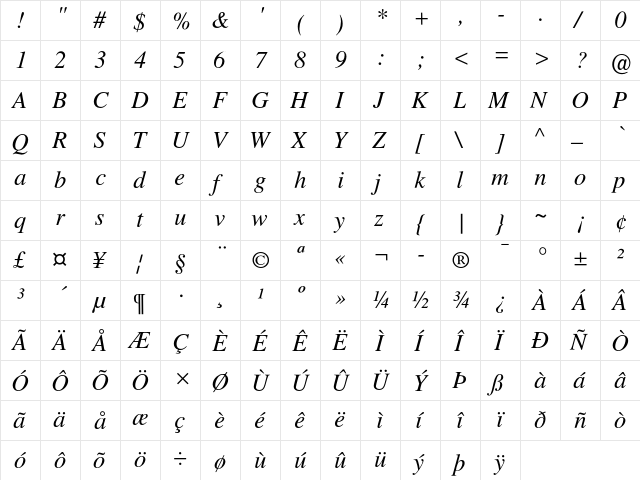
Nimbus Roman No9 L Regular Italic
Design Context for Nimbus Roman No9 L Typeface
Nimbus Roman No9 L offers clean, dependable letterforms without strong stylistic allegiance, making it a practical choice for designers who need flexibility. The slanted form adds forward momentum and visual energy.
Pro Tip: Try Nimbus Roman No9 L for annotation and caption copy alongside an upright companion — the contrast in angle creates a dynamic but ordered typographic system.